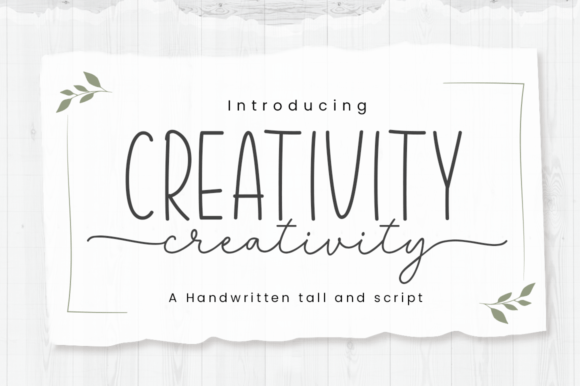
Welcome to the world of Creativity Font, the best font for speech script available on the market today! Created by Manjalistudio, Creativity is a versatile duo handwritten font that is perfect for elevating your designs to the next level.
With its unique and beautiful touch, every letter of Creativity Font has a distinct personality that will make your logos, branding, and quotes stand out from the crowd. Its script font family adds a personal touch to any project, making it the ideal choice for those looking to add a touch of warmth and creativity to their designs.
Whether you're a professional graphic designer or just starting out, Creativity Font is the perfect tool to help you achieve your creative goals. This font is perfect for creating eye-catching designs that will captivate your audience and leave a lasting impression.
With Creativity Font, you can express your creativity and personality in your designs like never before. The unique and beautiful touch of each letter will make your design come alive, adding a touch of elegance and sophistication to your work.